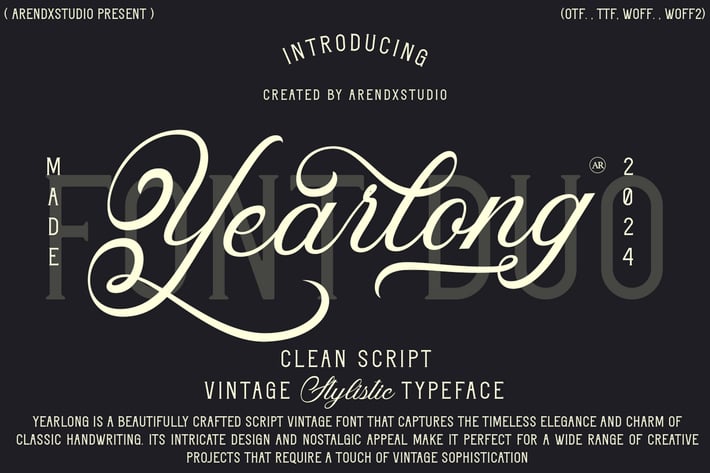
Yearlong Script Vintage Font
Font Name: Yearlong
Type: Script Vintage Font
Overview:
Yearlong is a beautifully crafted script vintage font that captures the timeless elegance and charm of classic handwriting. Its intricate design and nostalgic appeal make it perfect for a wide range of creative projects that require a touch of vintage sophistication.
1. Vintage Aesthetic:
- Classic Handwriting Style: Inspired by traditional penmanship, Yearlong features flowing, connected letters that evoke a sense of history and elegance.
- Nostalgic Design: The font's vintage charm adds a layer of depth and character to any project, making it ideal for creating timeless designs.
2. Versatile Applications:
- Wedding Invitations: Perfect for adding a romantic and elegant touch to wedding stationery, making special moments even more memorable.
- Branding and Logos: Ideal for creating logos and brand identities that stand out with a unique vintage flair.
- Editorial Design: Enhances the aesthetic appeal of magazines, book covers, and other printed materials with its classic script style.
3. Character Set:
- Complete Alphabet: Includes uppercase and lowercase letters, numerals, and punctuation marks.
- Stylistic Alternates: Offers a variety of alternative character designs to provide customization options and creative flexibility.
4. Additional Features:
- Ligatures: Specially designed ligatures improve the natural flow and readability of the text.
- Swashes and Flourishes: Decorative elements that can be added to characters for an extra touch of vintage elegance.
- Logo Design: Yearlong’s vintage script style makes it perfect for crafting unique and memorable logos that convey a sense of tradition and quality.
- Wedding Invitations: Create timeless and beautiful invitations that capture the romance of the occasion with Yearlong's elegant script.
- Product Packaging: Add a touch of sophistication to product labels and packaging with the intricate and nostalgic design of Yearlong.
Yearlong is a script vintage font that brings a sense of timeless elegance and classic charm to any project. Its intricate design and nostalgic appeal make it an excellent choice for a wide range of applications, from wedding invitations to branding. With Yearlong, every design is infused with a sense of history and sophistication, making it truly memorable.
Uppercase and lowercase characters
Numerals and Punctuation (OpenType Standard)
Accents (Supports Multilingual Characters)
Stylistic set